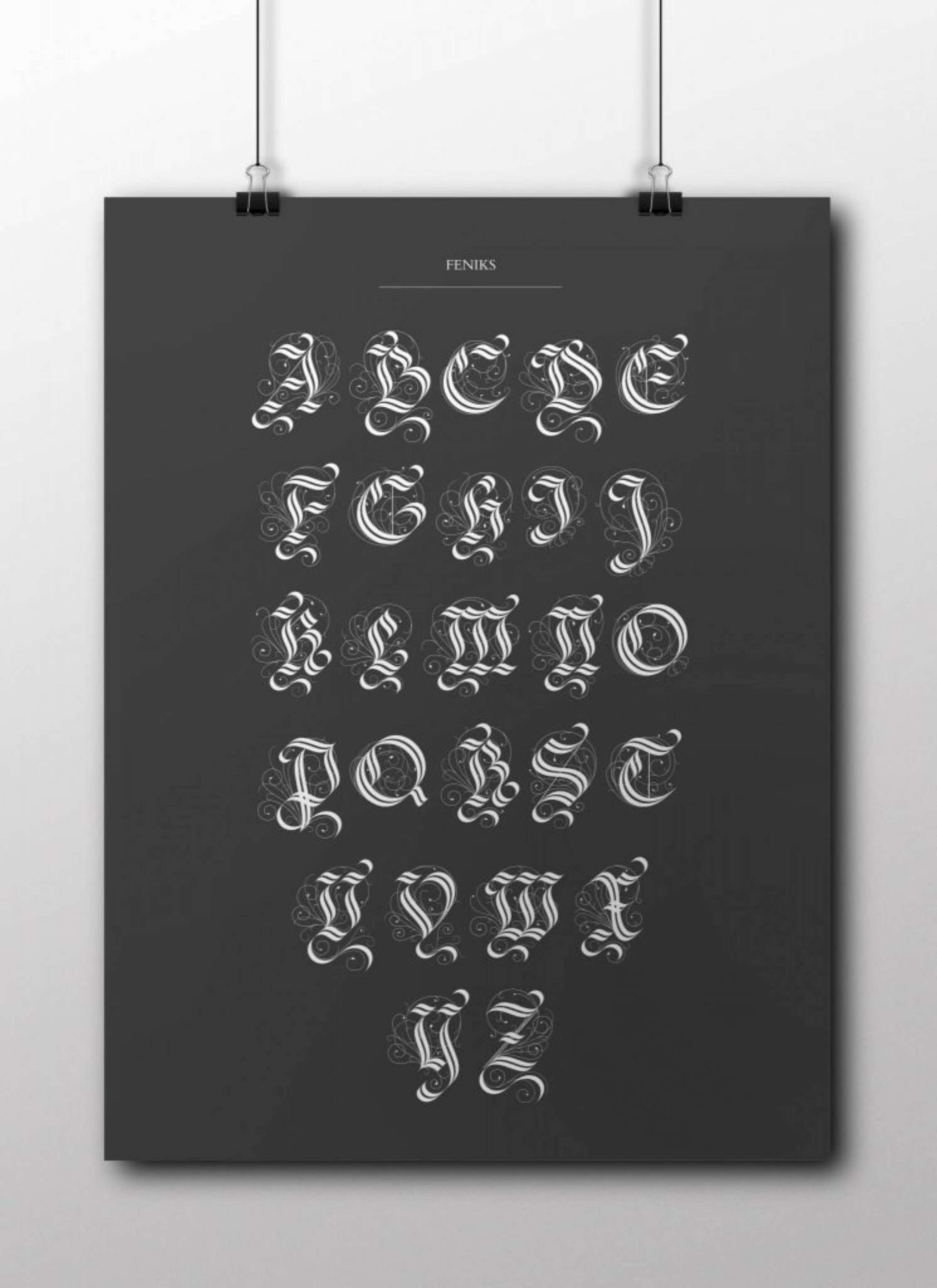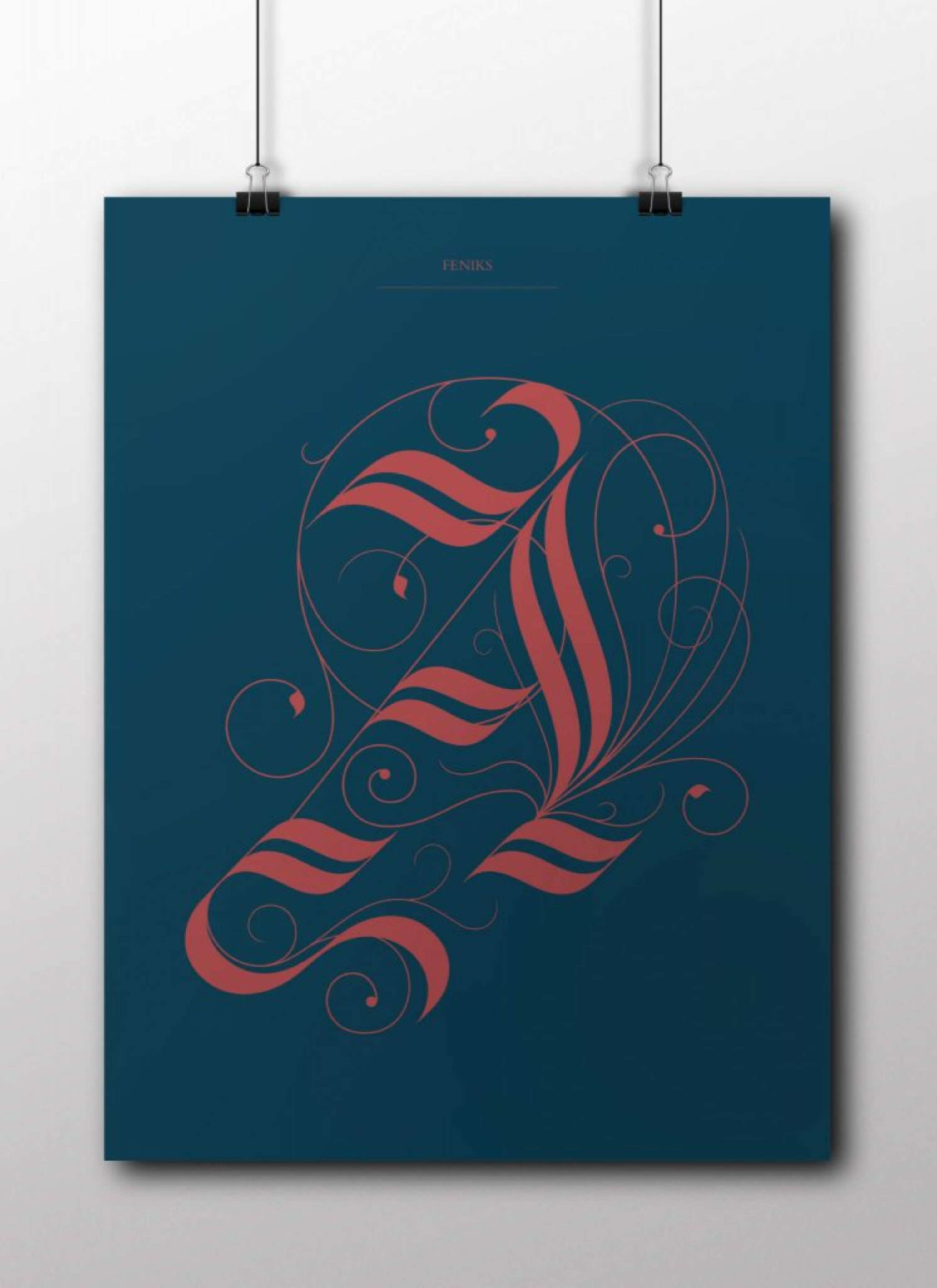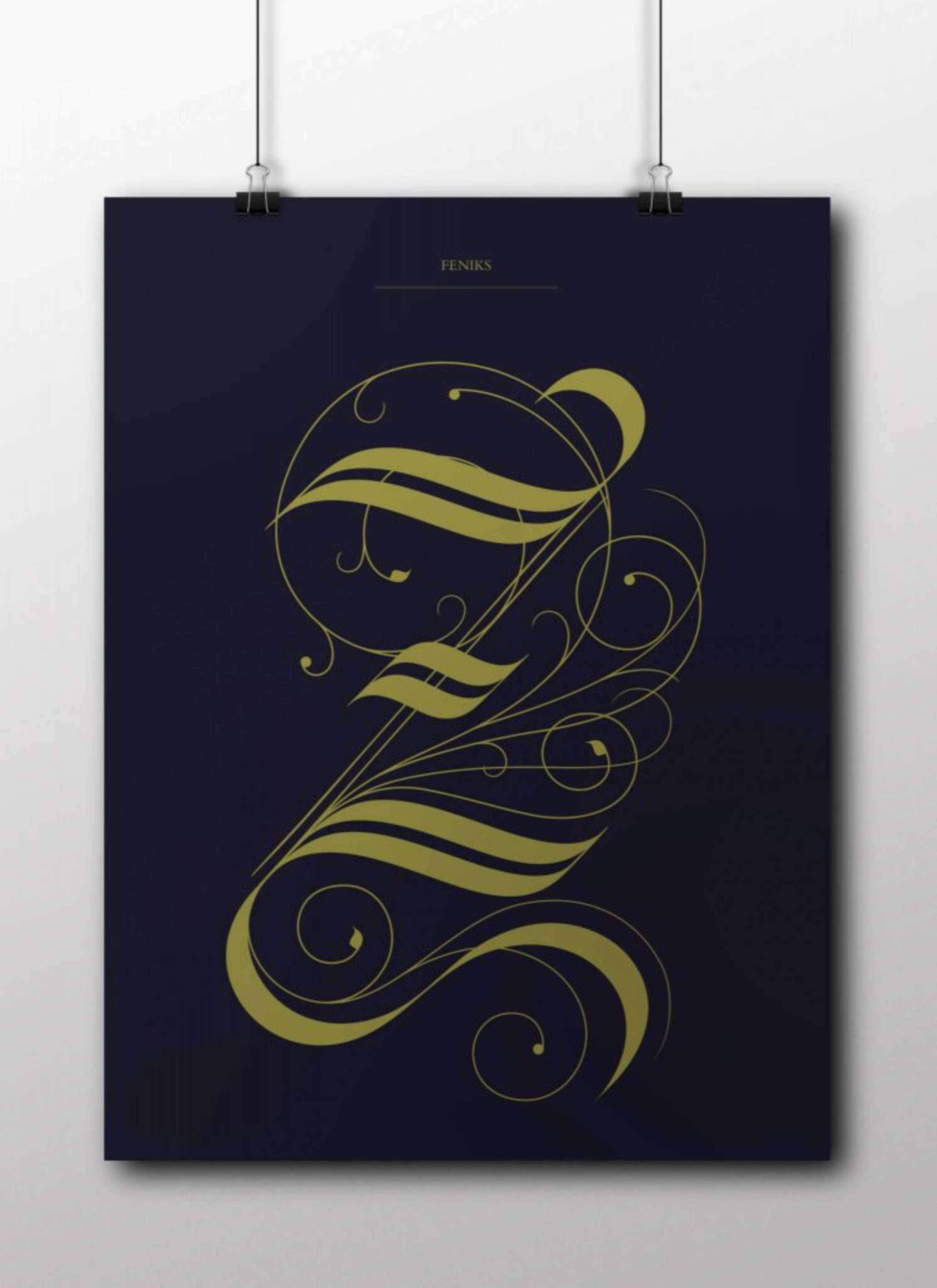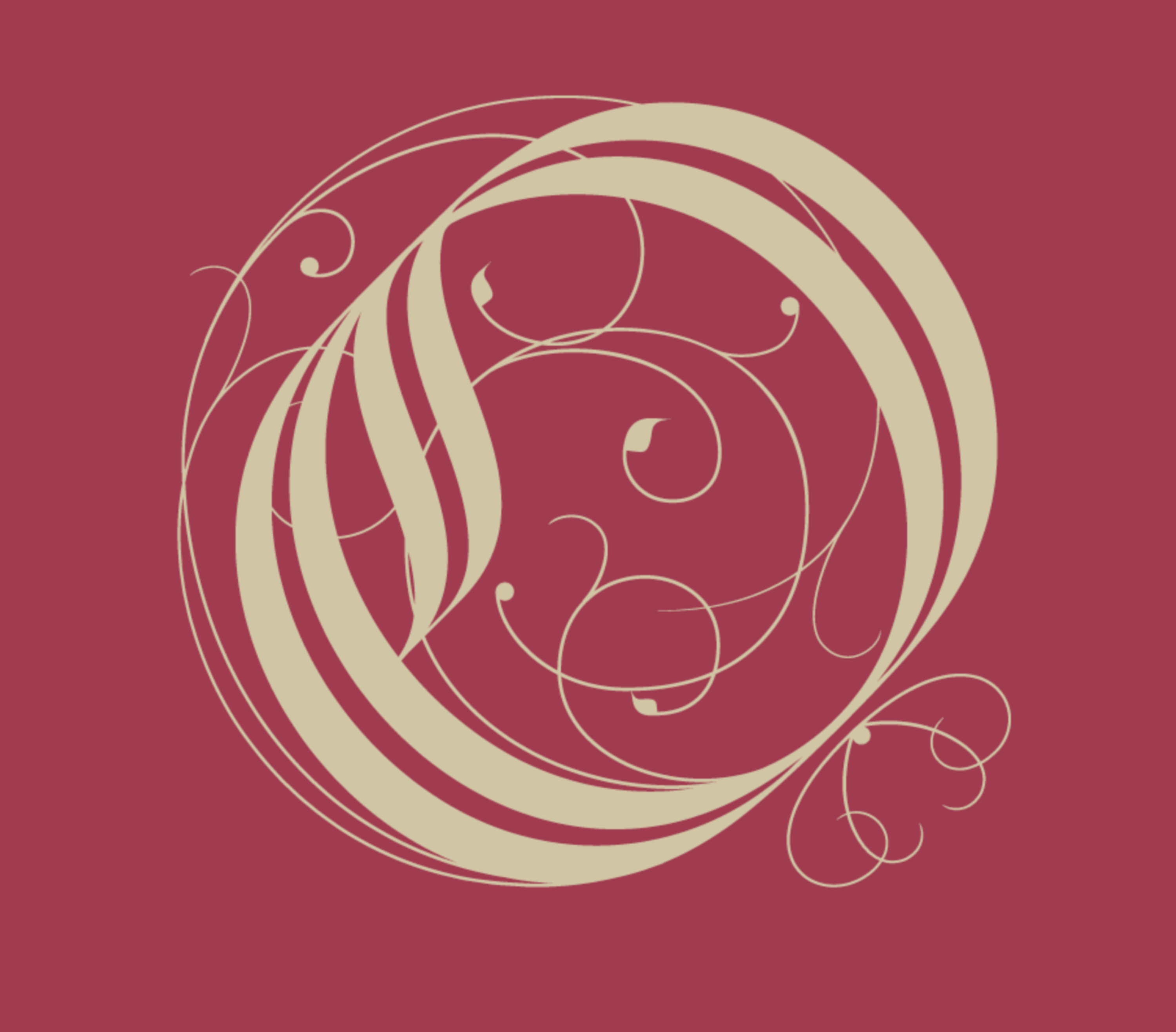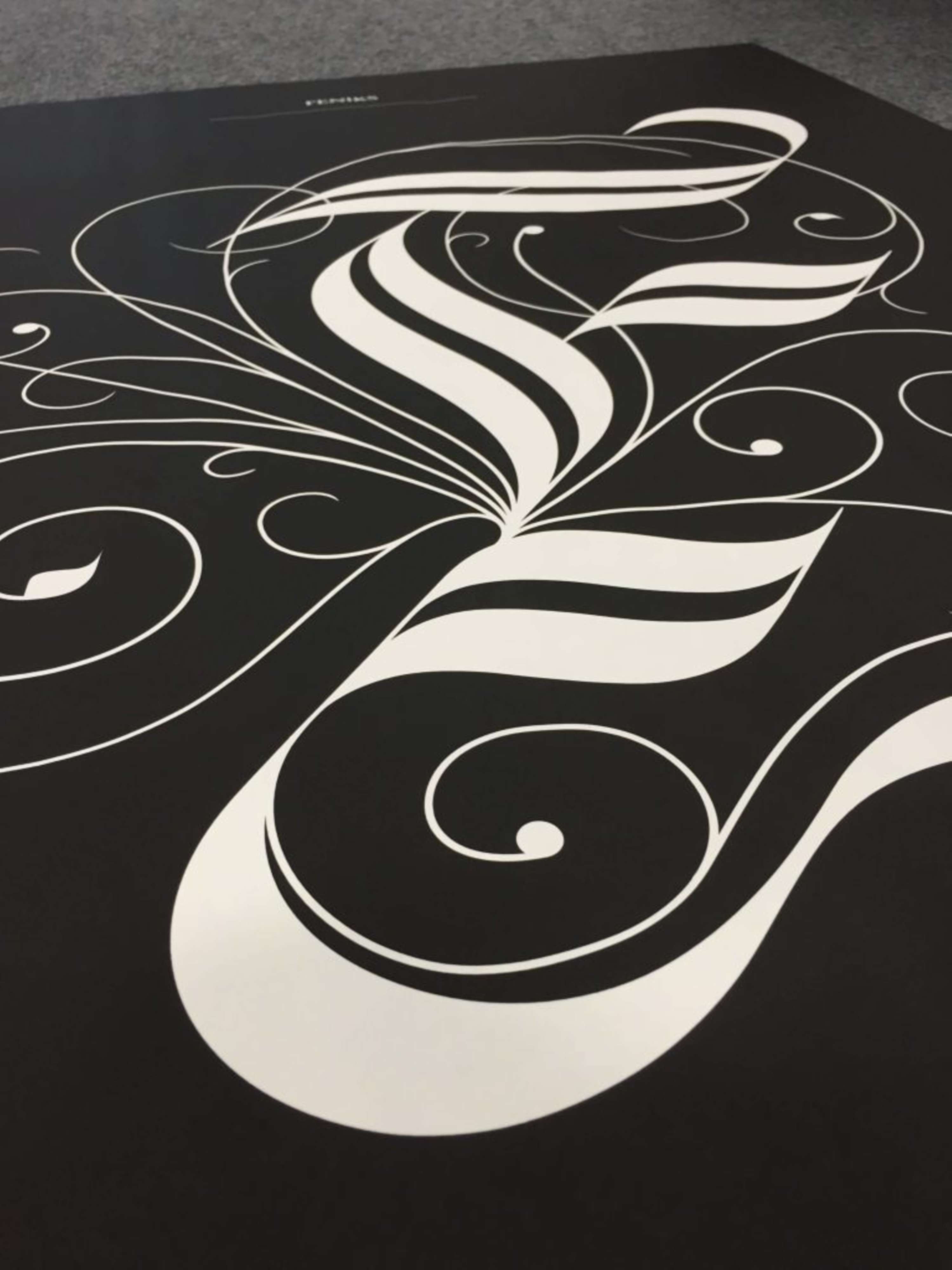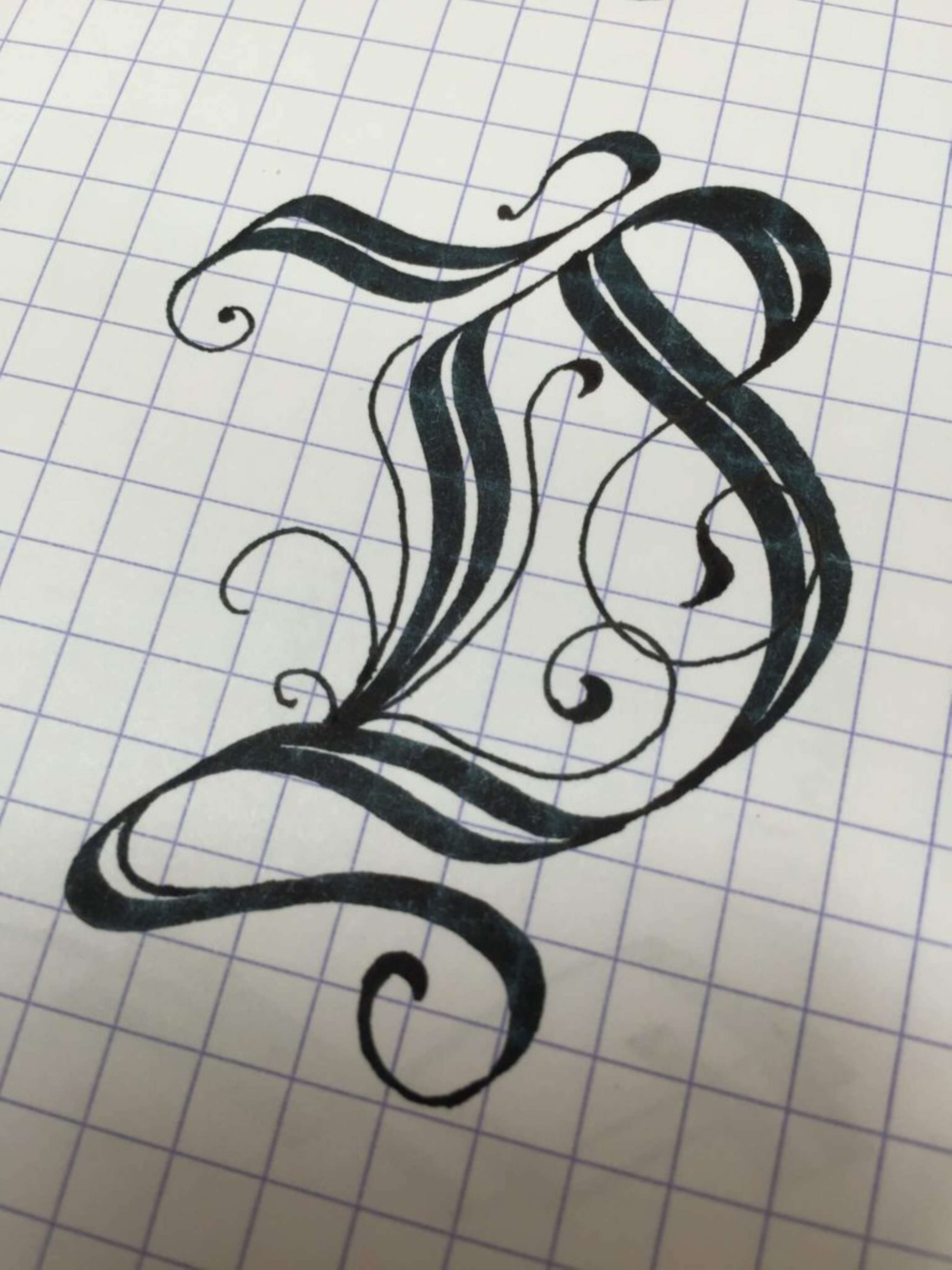
Feniks - typeface design
Feniks is the final artefact of my Master’s degree. The artefact was the result of my exploration into medieval calligraphy. Calligraphy is a hobby of mine and being able to study this style gave me a better understanding of typography, letter structure, the tools and techniques for creating hand drawn and digital typefaces. The artefact is a celebration of medieval scripts, its structure is based on script Gothic Littera Bastarda. There are the standard version and a flourished version of the typeface. The name “Feniks” is the polish word for PHOENIX which symbolises rebirth. My projects intention was to give this craft a place in the 21st century.
Feniks - typeface design by Aneta Burkiewicz